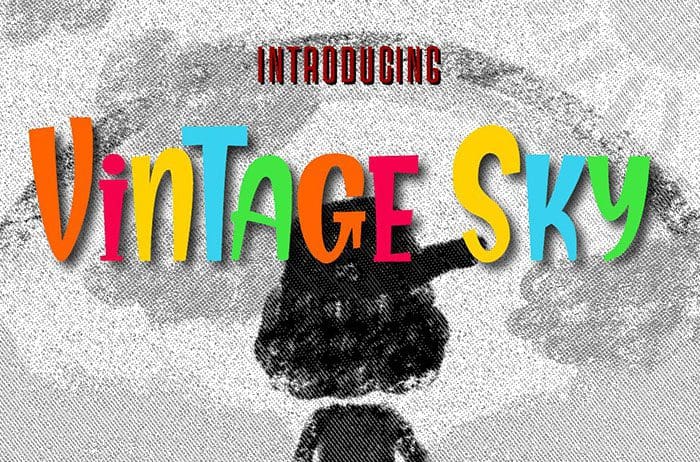
Vintage Sky Display Font
Vintage Sky display font is a fun and versatile typeface. This font is suitable for posters, logos, headings, blogs, brandings, advertisings and more! Get it now guys, get inspired by its unique charm, and start using it for any creative project! This font is available only for personal use. Created this font by Epiclinez. You can also search more freeĀ Fonts.